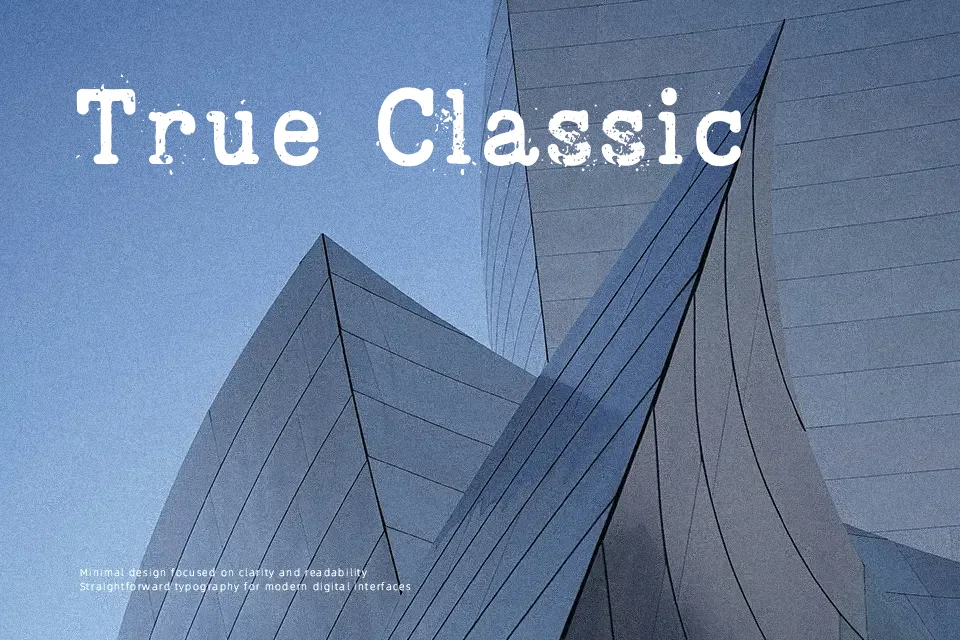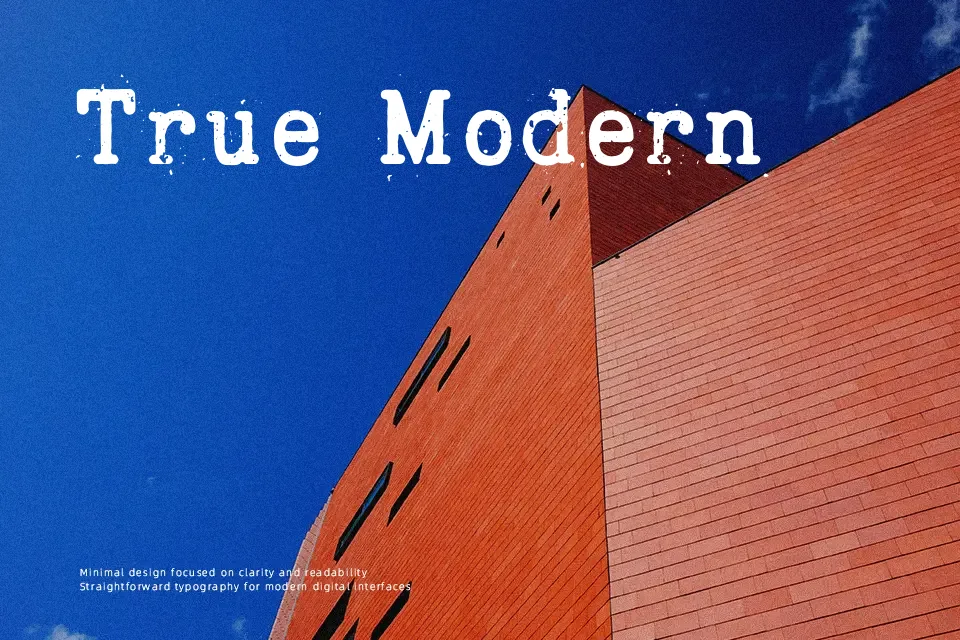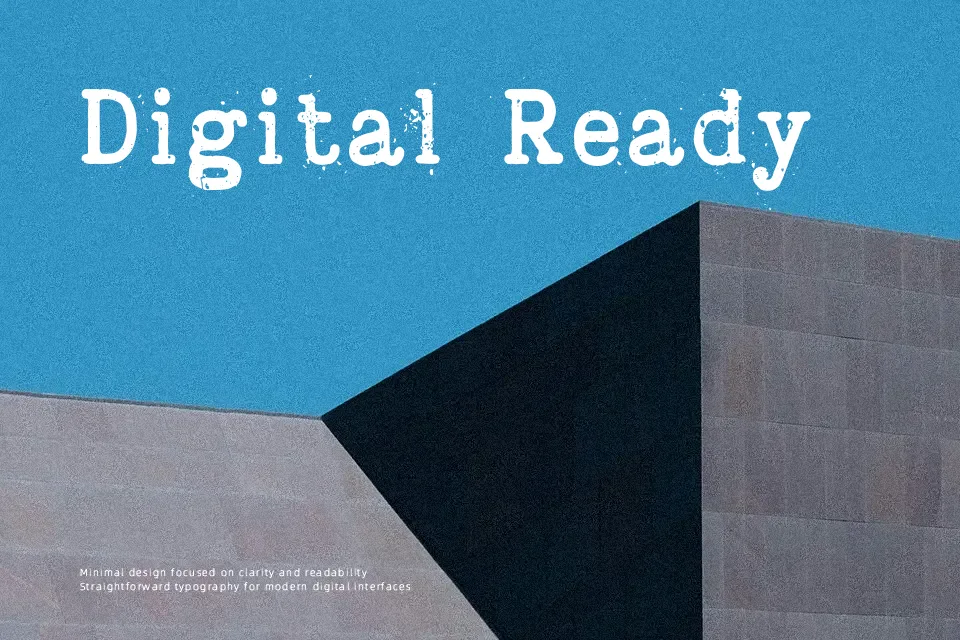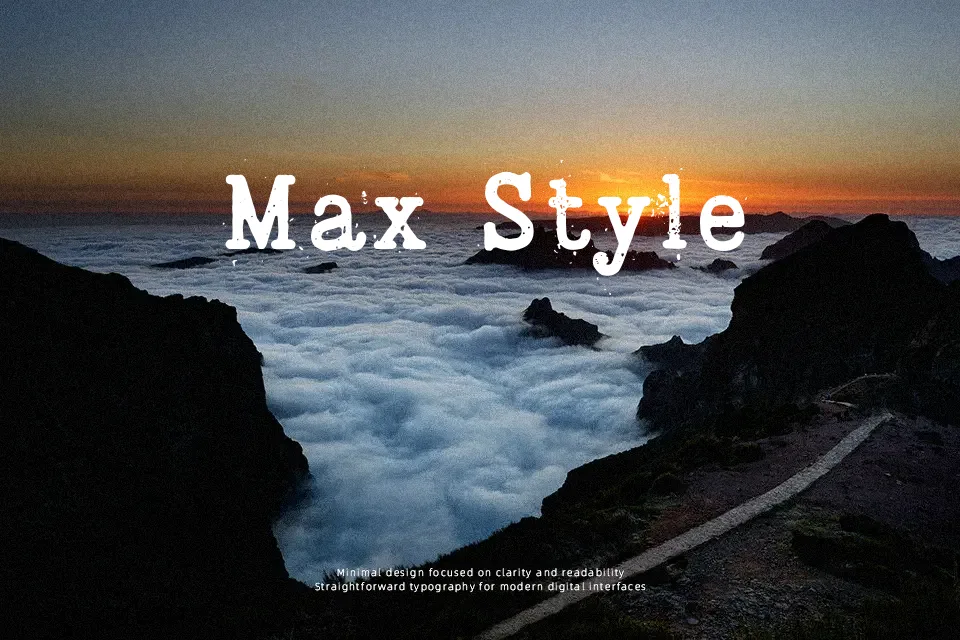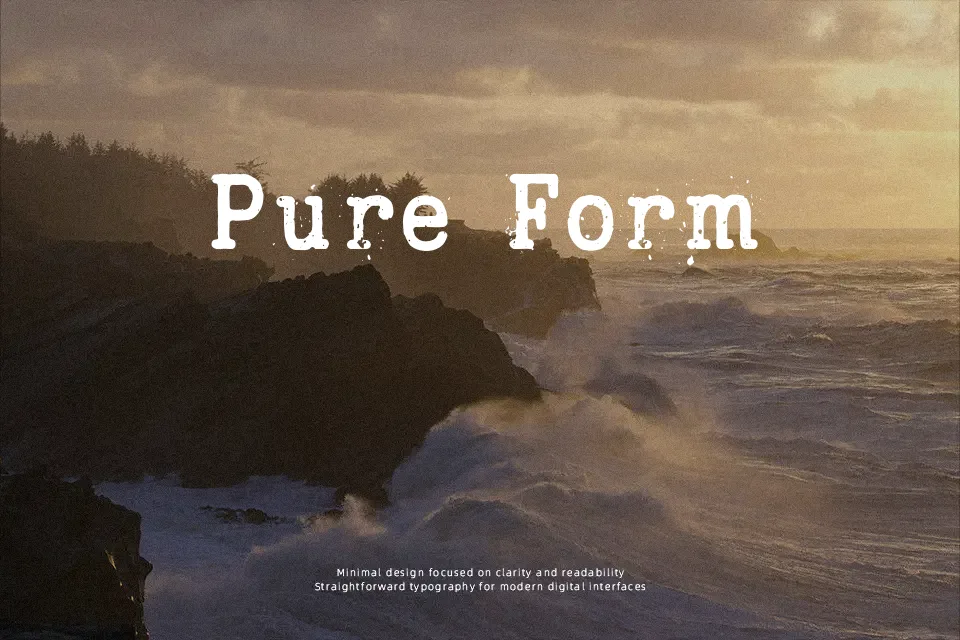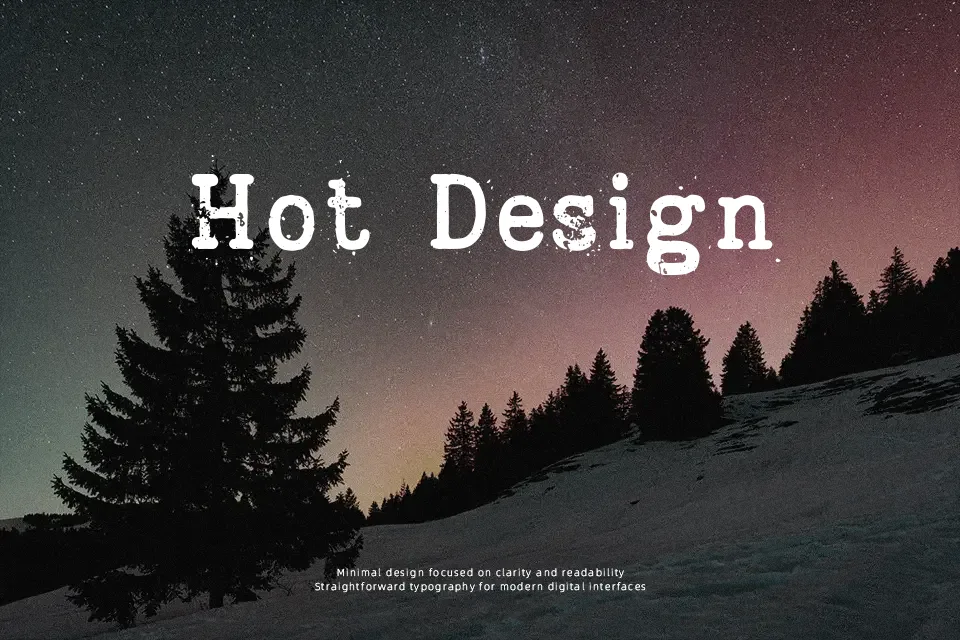
Bygonest Typewriter Font
Bygonest Typewriter Font brings a distressed slab serif look, with slightly irregular strokes, varied ink-like textures, and roomy spacing that mimics an old mechanical typewriter. The family includes clean and rustic styles across thin, regular, and bold weights, so you can push from subtle wear to heavily stamped letters in the same project. It shines in work where you want headlines or short paragraphs to feel archival, such as newspaper-inspired layouts, vintage labels, or story-driven branding. For long body text on screens or polished corporate identities, the rough texture can become visually noisy and distract from readability, so it fits better as a display accent than a primary reading face.
vintage-style posters and headlines
retro labels and packaging with a worn print feel
storytelling branding that references old documents or archives
typewriter-themed social media graphics and quotes
long digital body text or dense paragraphs
minimalist or highly corporate brand systems
small-size UI elements where texture reduces clarity
projects needing a neutral, invisible text face
Perfect for branding, headline, and music, with a artistic and display style.